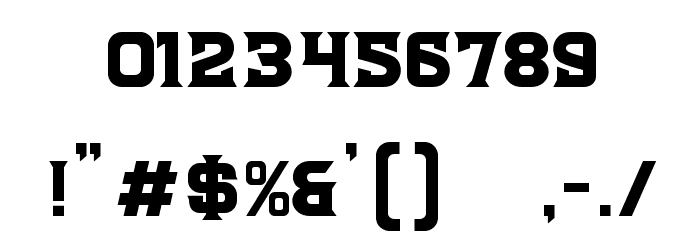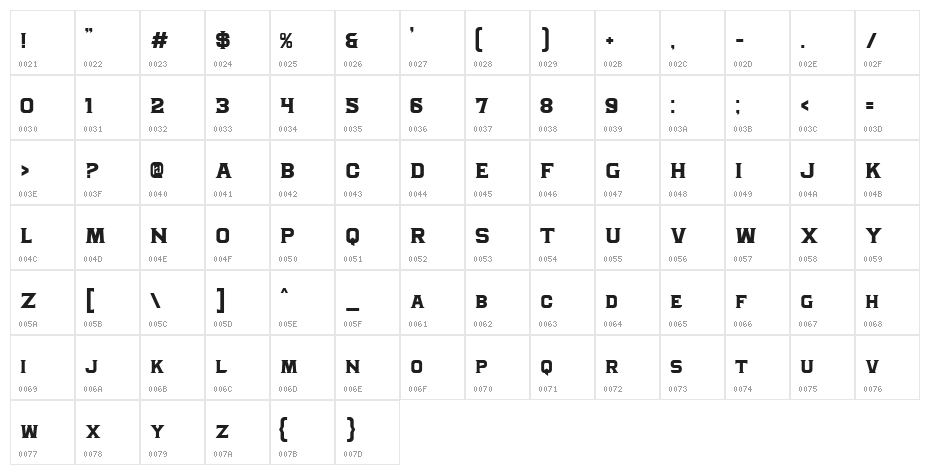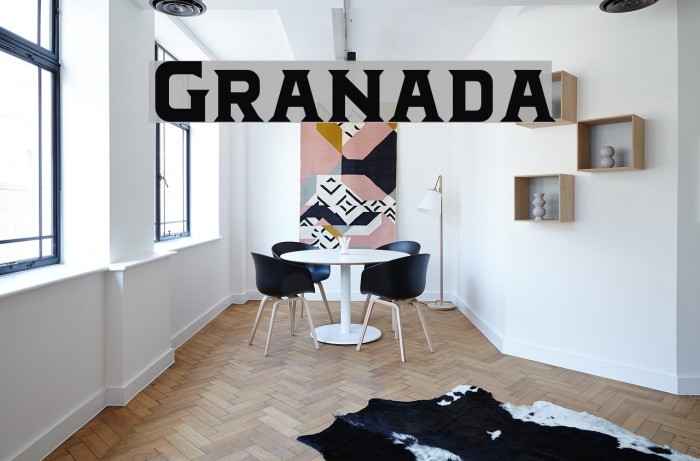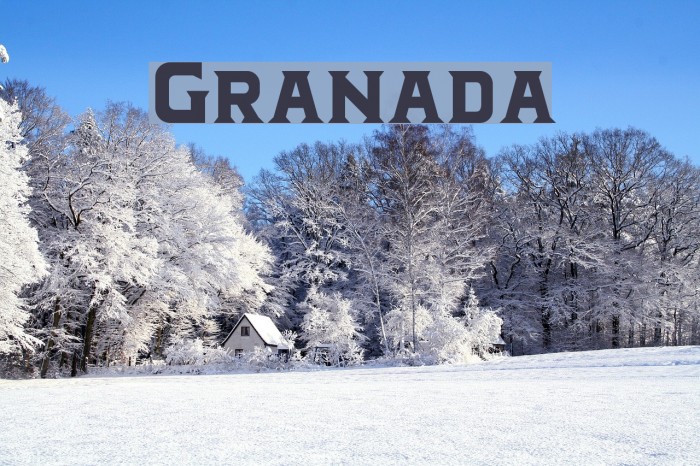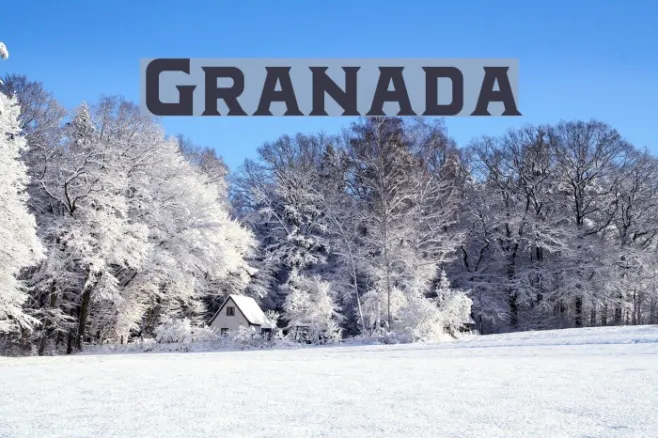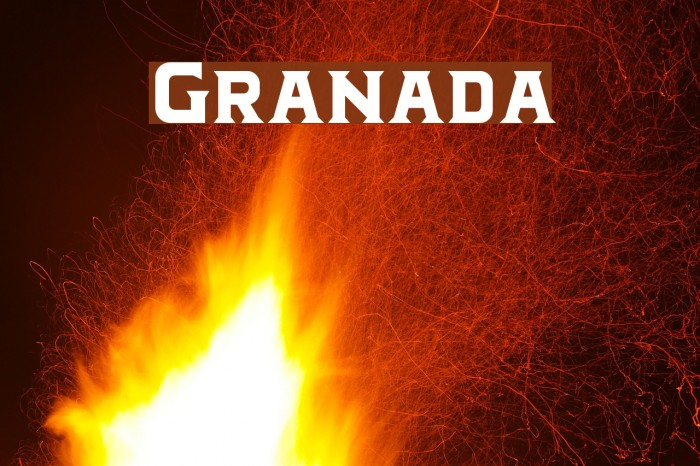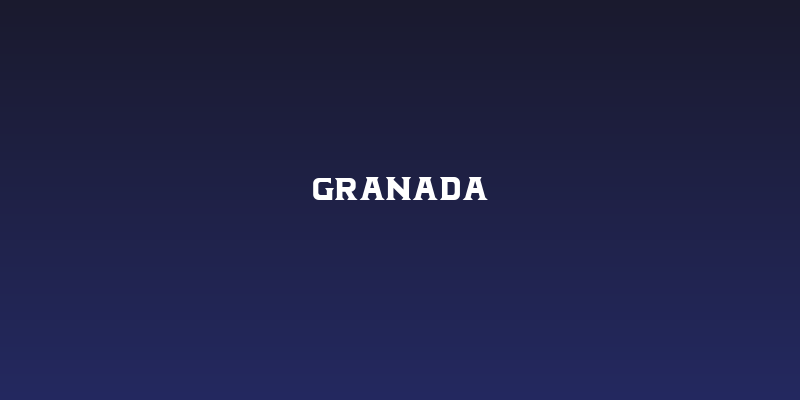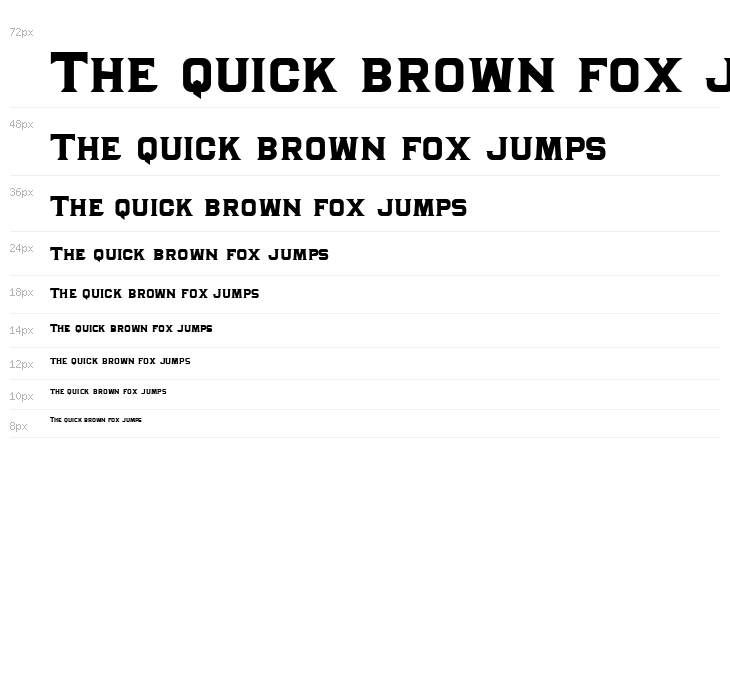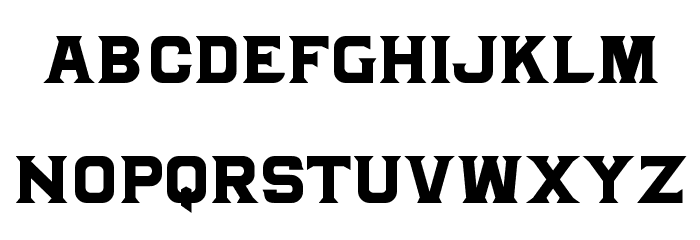
Granada Font
This font features a bold and striking design with strong, angular serifs and a robust presence. The uppercase letters are characterized by their solid, block-like appearance, while the lowercase letters maintain a consistent weight and style. The numbers are equally bold, ensuring readability and impact. Special characters are designed to match the overall aesthetic, providing a cohesive look across all glyphs. The font's style is reminiscent of vintage or classic typefaces, yet it maintains a modern edge, making it suitable for a variety of design applications.
A bold, angular serif font with a vintage yet modern appeal.
• Proposed Projects: Ideal for branding, posters, headlines, and any project requiring a strong, impactful typeface.
• Category: Slab Serif
• Overall Style: Vintage, Modern
• Use Case: Headlines, Logos, Posters